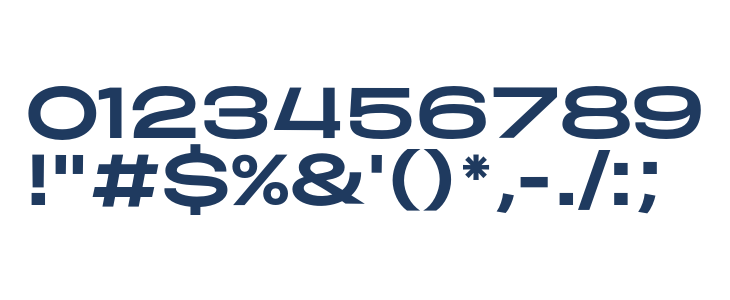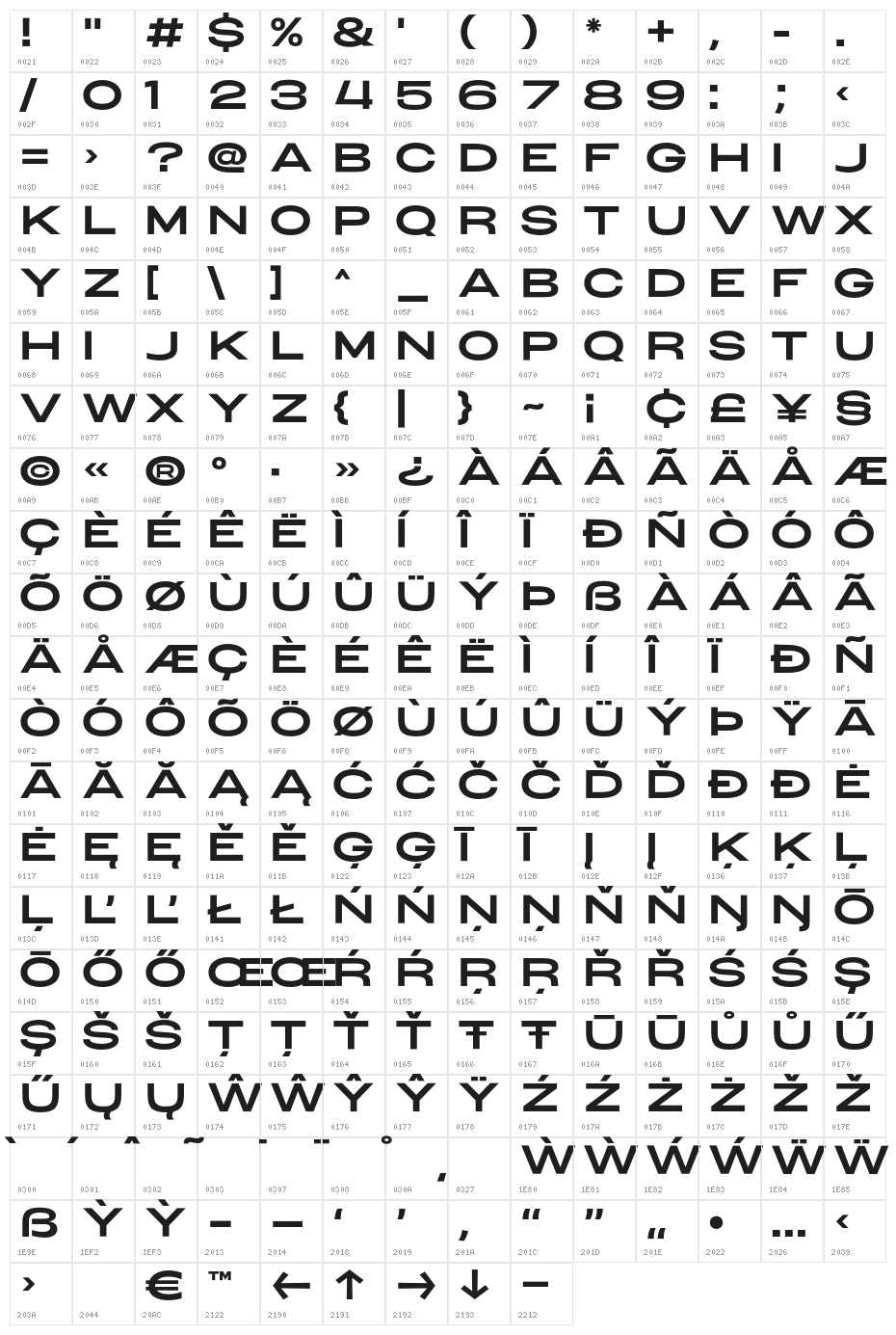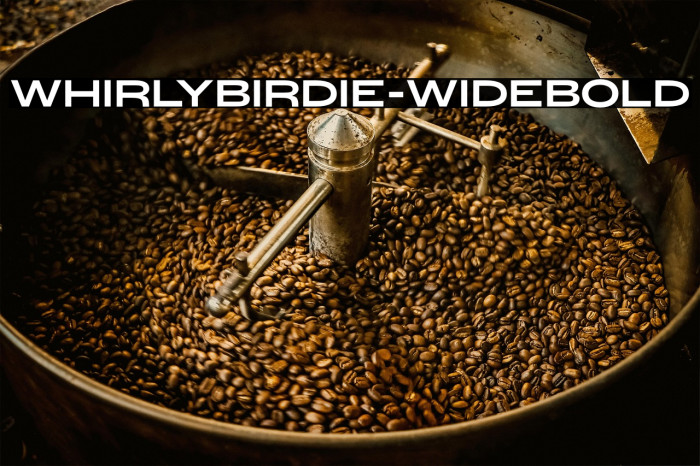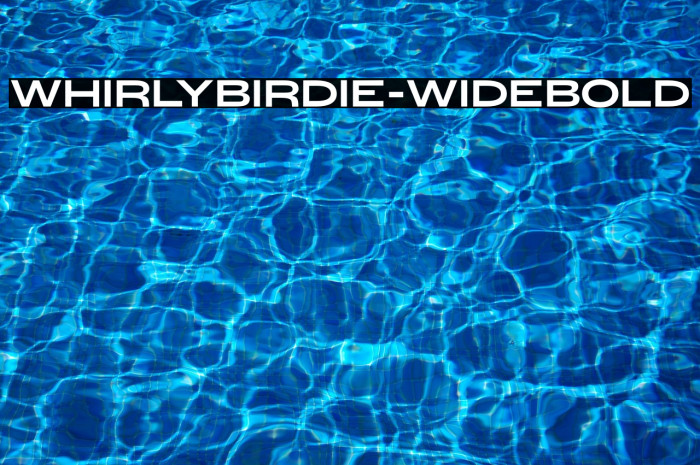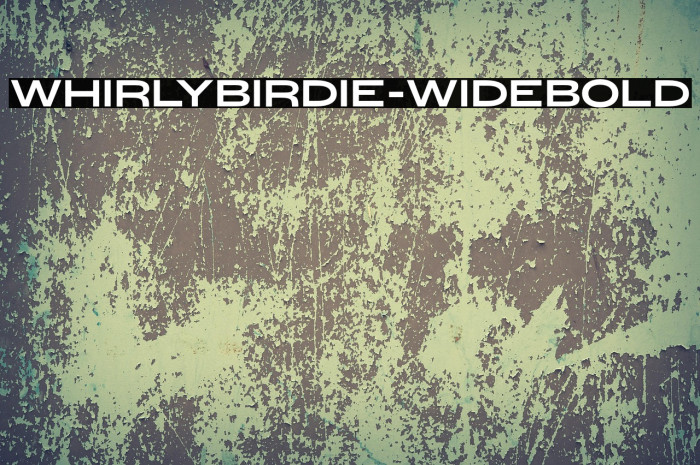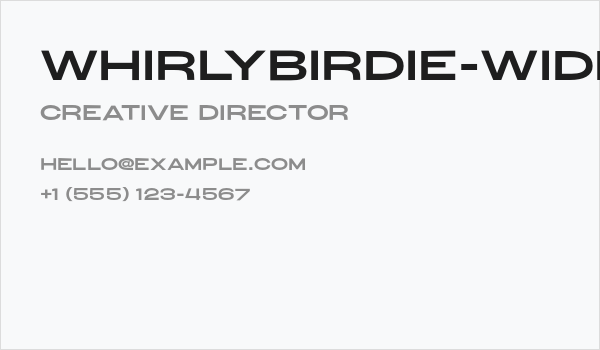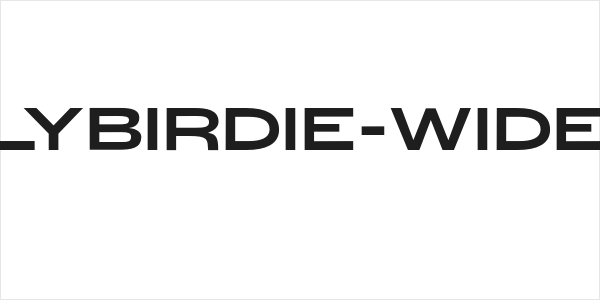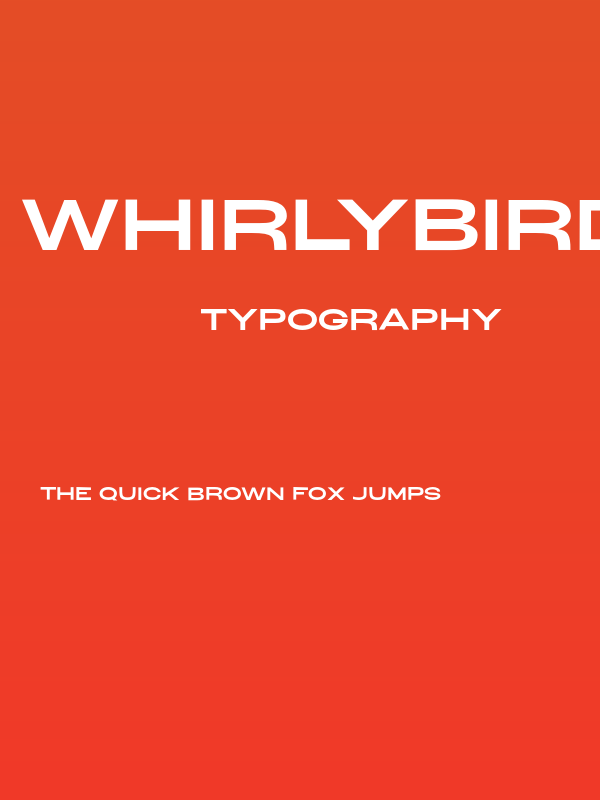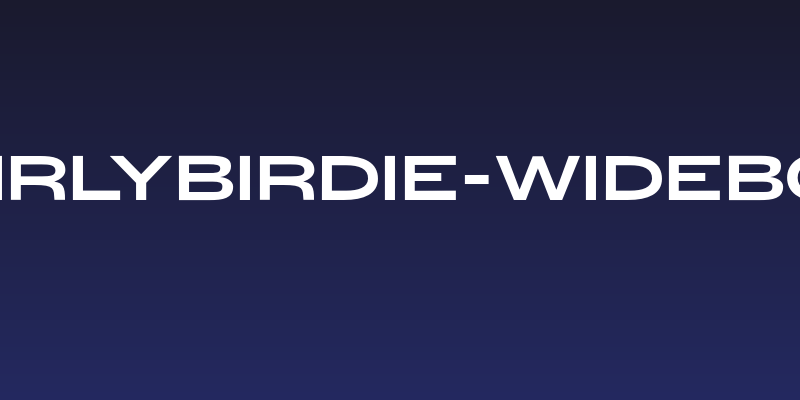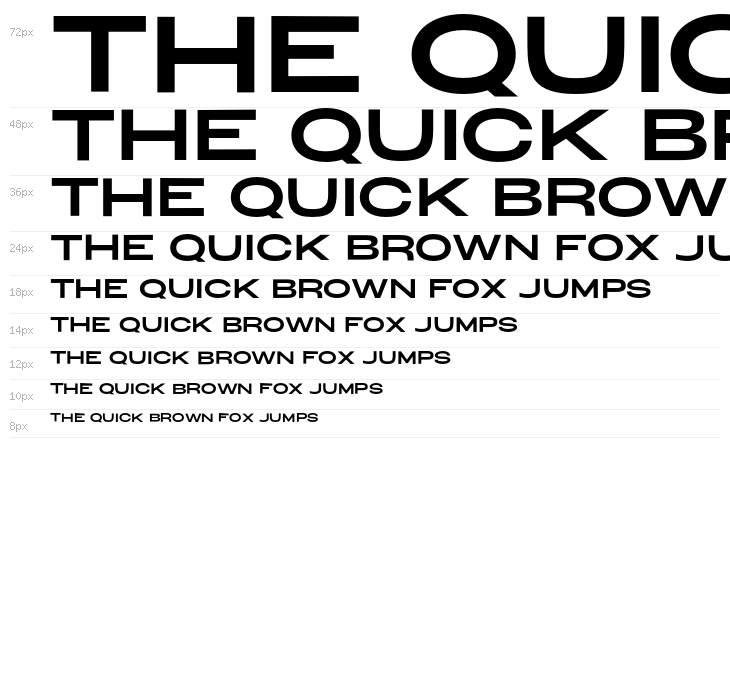
WhirlyBirdie-WideBold Font
WhirlyBirdie-WideBold Description
This font features a bold and wide sans-serif style, characterized by its clean and modern appearance. The uppercase and lowercase letters are uniformly wide, giving a sense of stability and strength. The numbers and special characters maintain this consistent width, ensuring a cohesive look across all characters. The strokes are even and lack any significant contrast, contributing to a uniform and solid appearance. The design is straightforward, with a focus on readability and impact, making it suitable for various applications where clarity and boldness are desired.